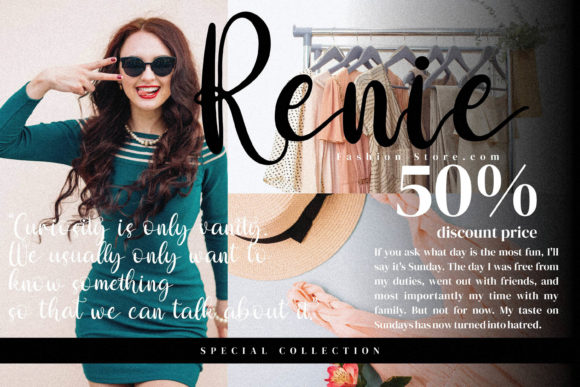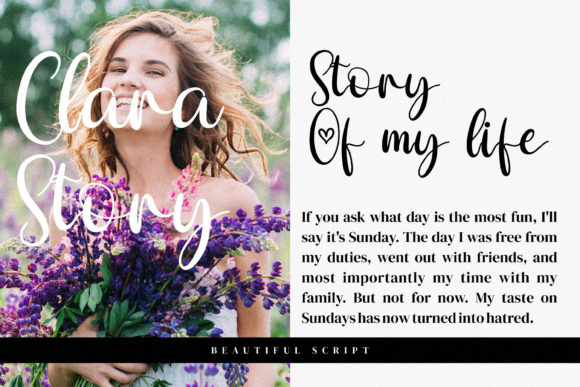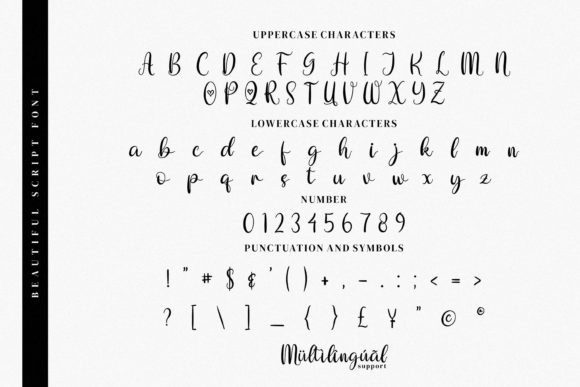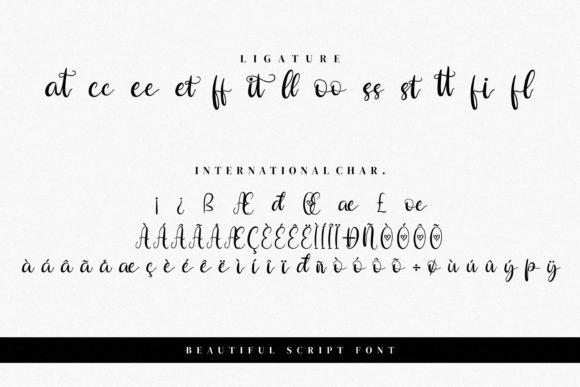
About Ottami Font
Ottami is a beautiful, light and cursive script font, featuring characters that dance along the baseline. It is PUA encoded which means you can access all of the glyphs and swashes with ease!